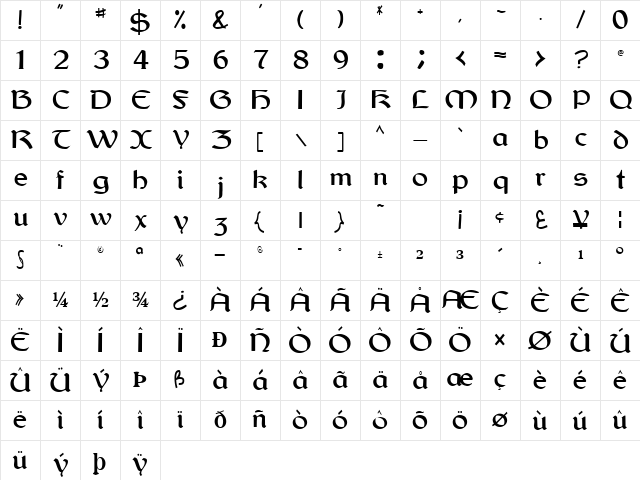
ReMinder106 Regular
Complete ReMinder106 Regular glyph index. Displaying only characters natively supported by ReMinder106 Regular font.
Design Context for ReMinder106
ReMinder106 is a composed and adaptable typeface that performs quietly and consistently across a wide range of design contexts.
Pro Tip: Use ReMinder106 in both headline and body roles to test its range before committing to a single application.